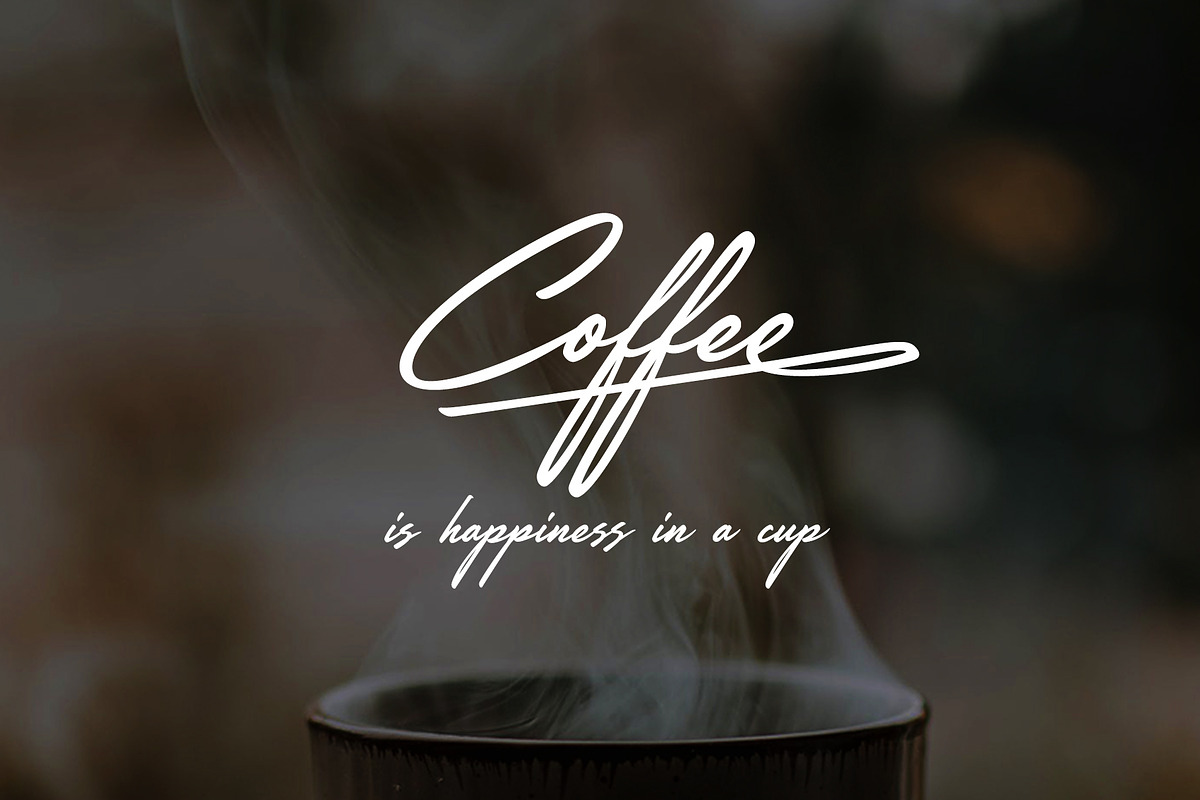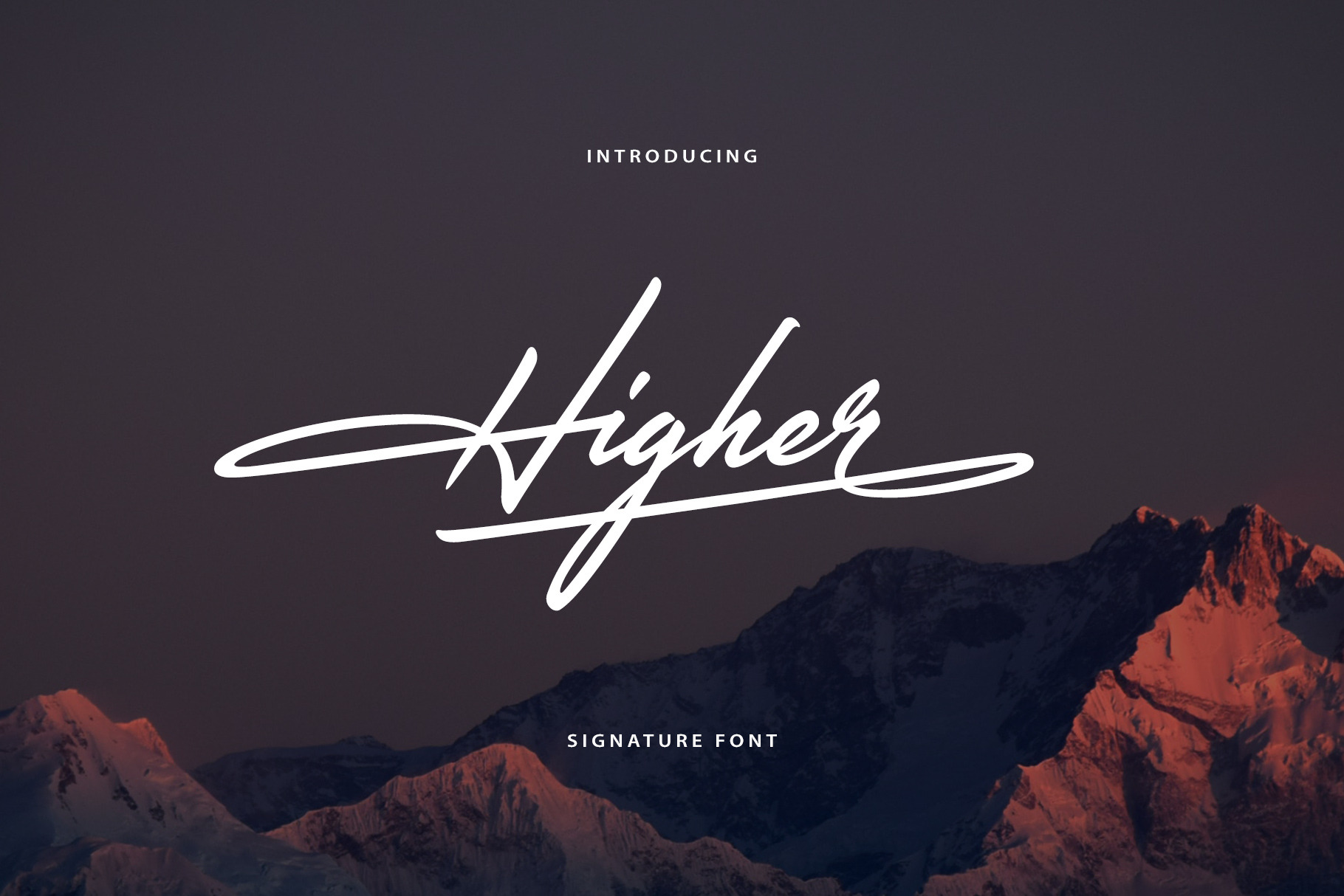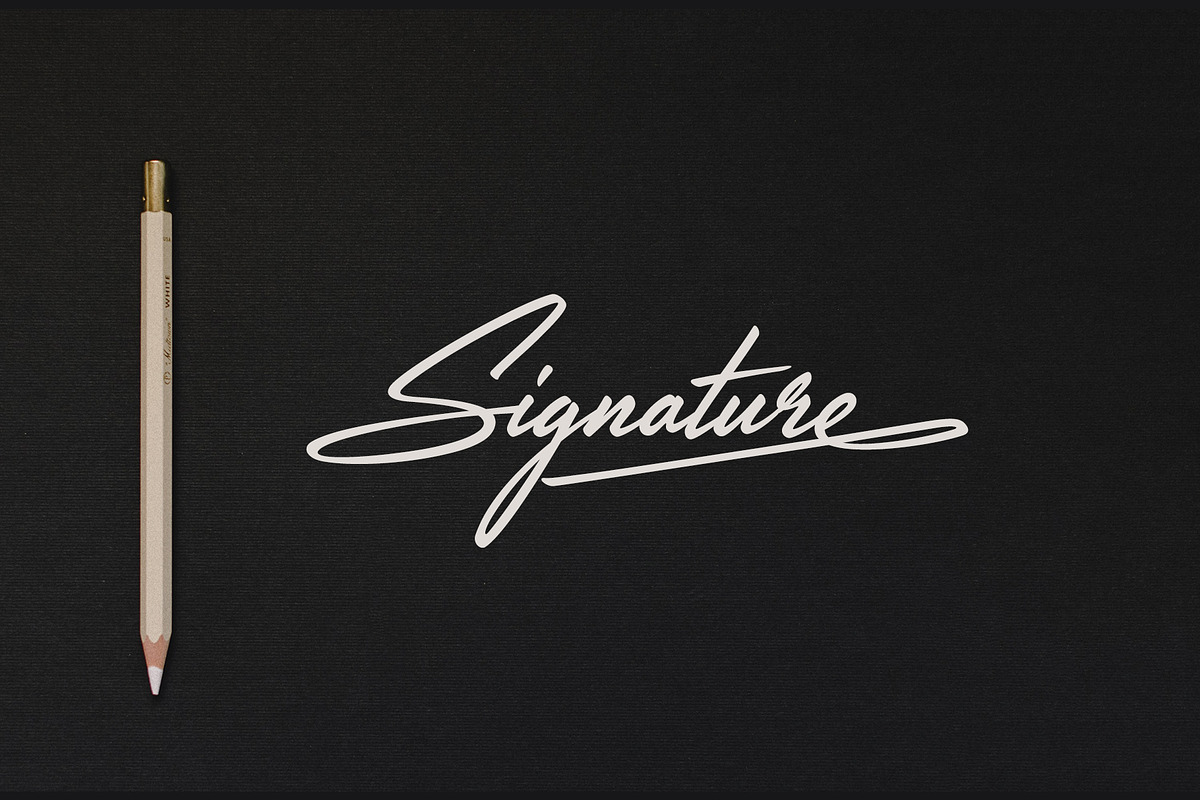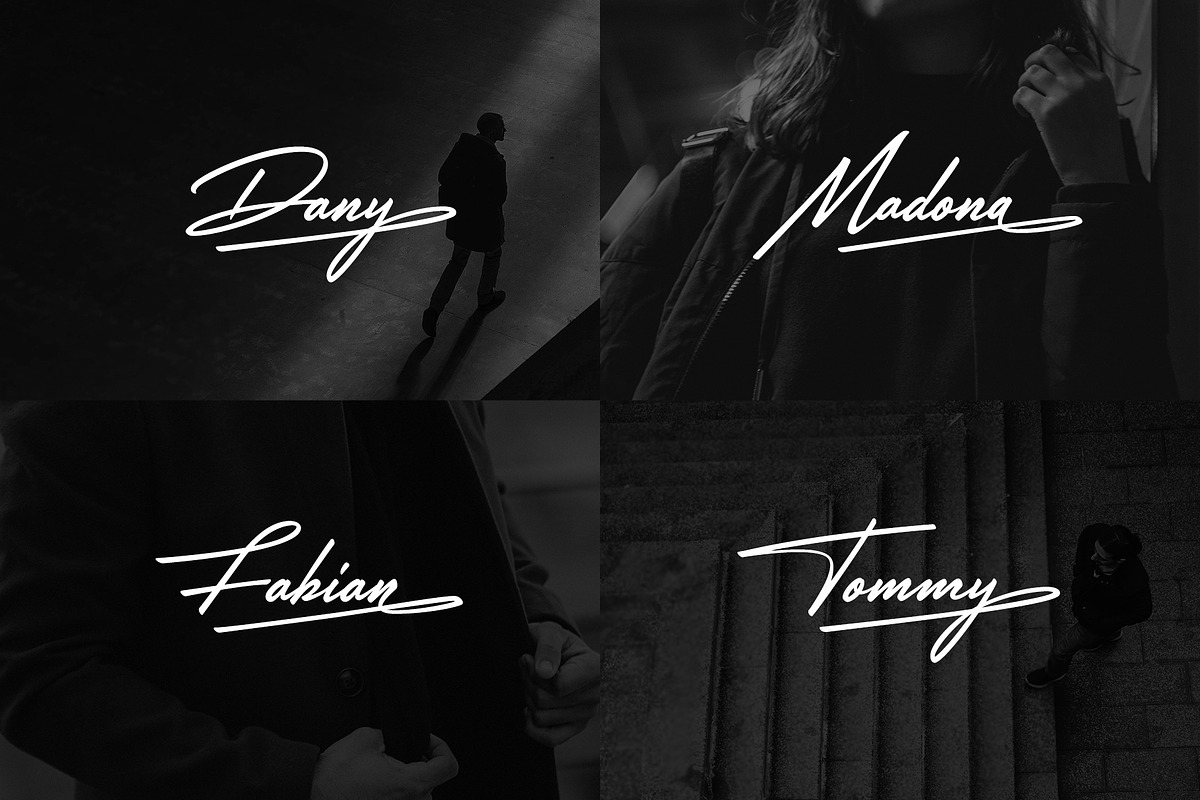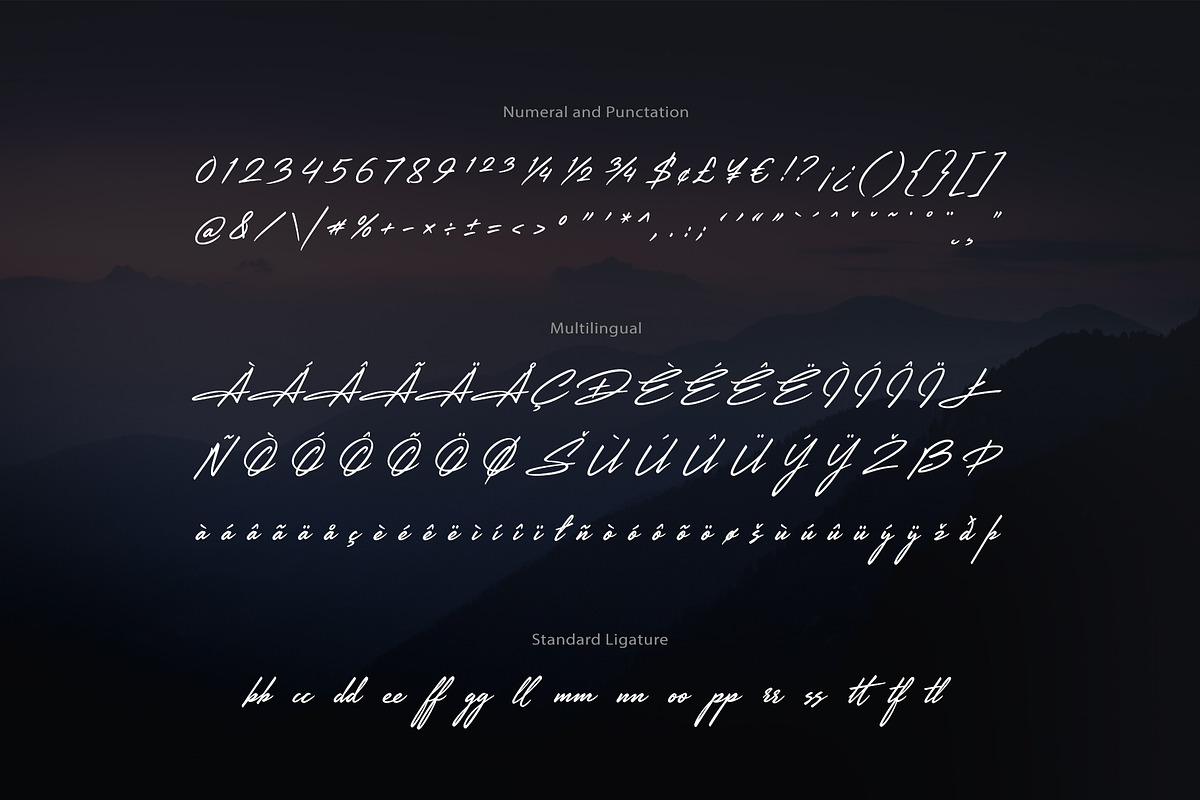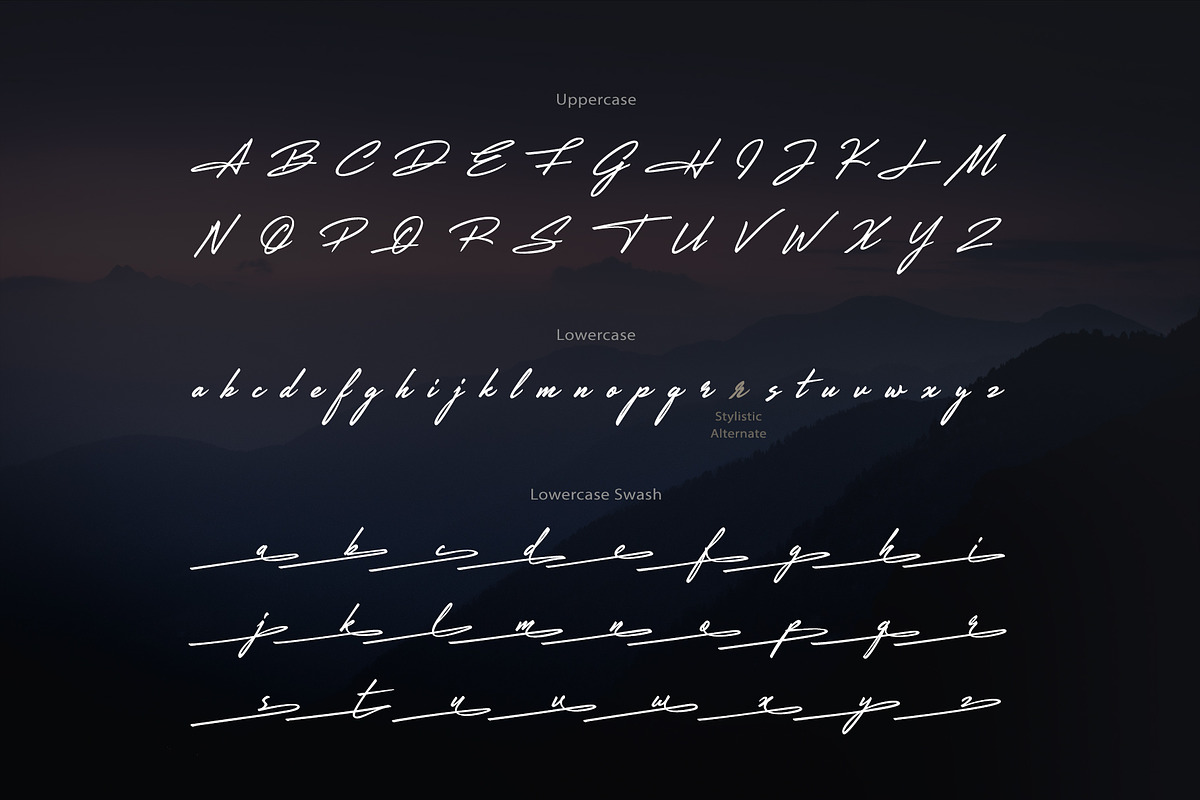
Higher Handwritten Font
Higher is a nice handwritten font. It gives a complete authentic feel on your text.
Total 241 glyphs available including alphabets, numerals, punctuation, ligature41 and multilingual characters.